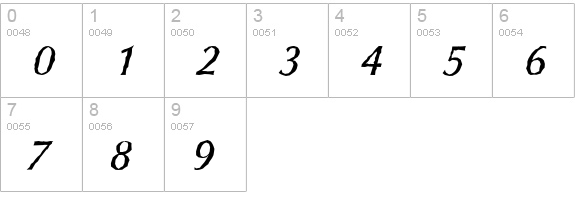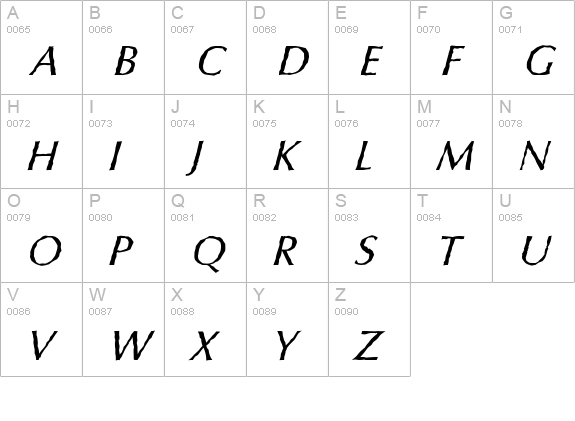
ColumbiaAntique-Italic is a distinctive, italic variant in the ColumbiaAntique typeface family \xE2\x80\x94 well suited to design and typography projects.
ColumbiaAntique-Italic font is a timeless and elegant typeface that exudes sophistication and charm. With its delicate serifs and graceful curves, this font is perfect for adding a touch of vintage flair to your design projects. The italic style adds a sense of fluidity and movement, making it ideal for use in headings, titles, and other prominent text elements. And the best part? ColumbiaAntique-Italic font is available for free download at FontsMarket.com. You can easily access this beautiful font and use it in your personal and commercial projects without any restrictions. Embrace the classic beauty of ColumbiaAntique-Italic font and elevate your designs with its timeless appeal.